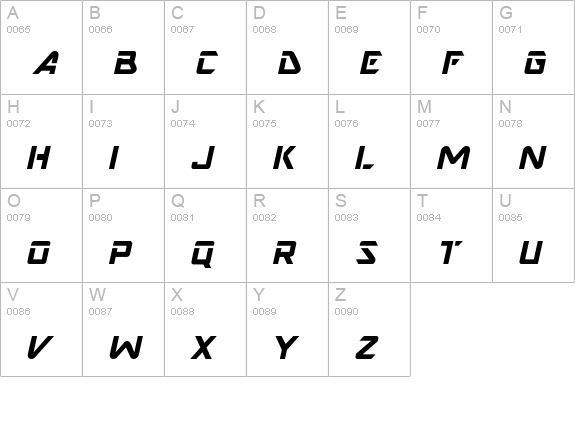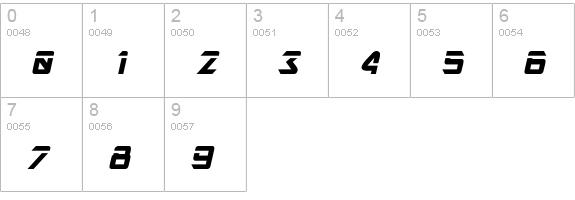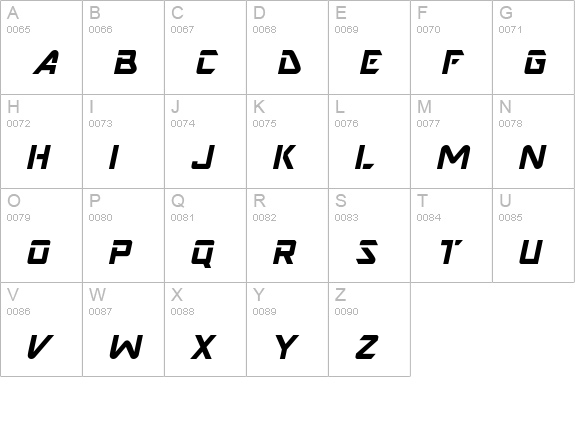
Nesbitt Italic Font Details
Nesbitt Italic is a distinctive, italic variant in the Nesbitt typeface family \xE2\x80\x94 well suited to design and typography projects.
Nesbitt Italic font is a sleek and elegant typeface that exudes sophistication and modernity. Its slanted design adds a touch of flair to any text, making it perfect for conveying a sense of style and professionalism. The smooth curves and flowing lines of Nesbitt Italic create a harmonious balance that is both eye-catching and easy to read. What sets Nesbitt Italic font apart is that it is available for free download at FontsMarket.com. This means that you can easily access this beautiful font and use it in your projects without any cost. Whether you're designing a website, creating a logo, or working on a printed piece, Nesbitt Italic font will add a touch of elegance and sophistication to your work. Download Nesbitt Italic font today and elevate your designs with this stunning typeface that is both stylish and free to use.